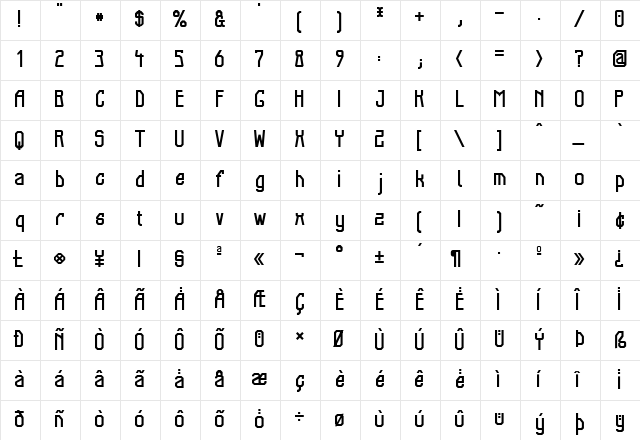
Elb-Tunnel Regular
Design Context for Elb-Tunnel Typeface
Elb-Tunnel is a composed and adaptable typeface that performs quietly and consistently across a wide range of design contexts.